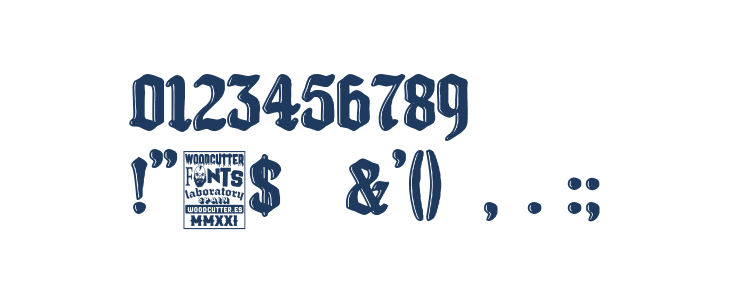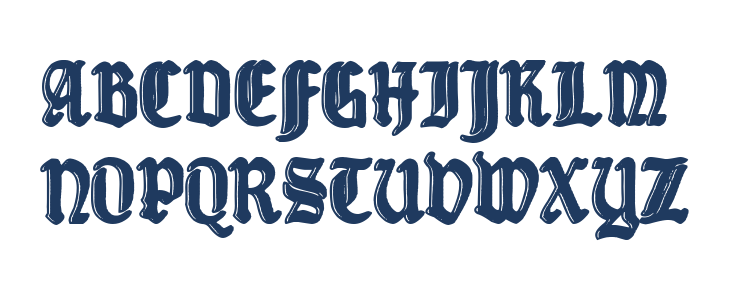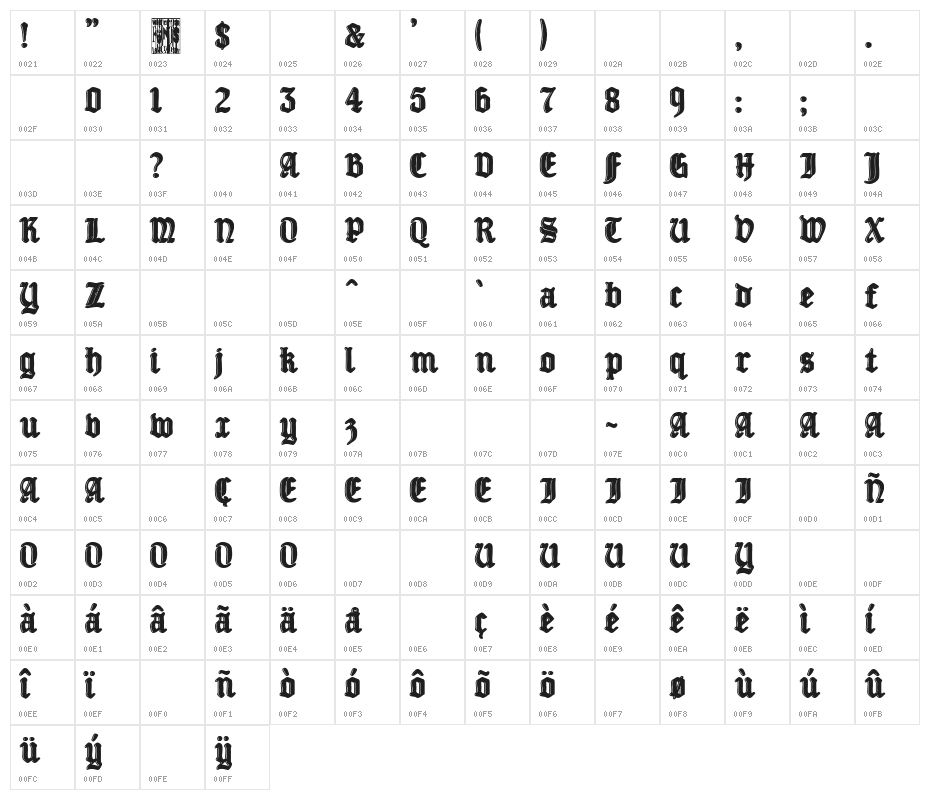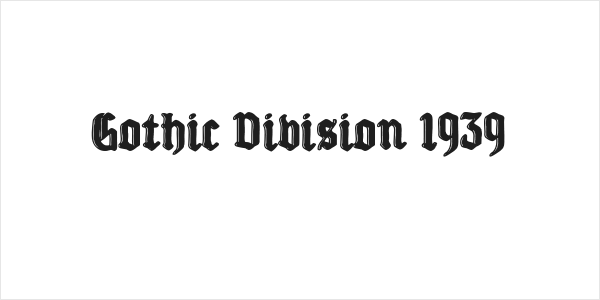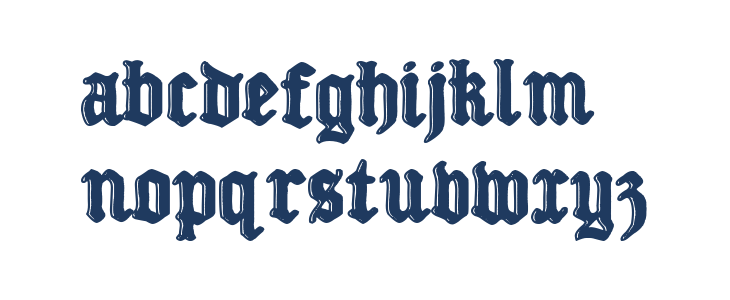
Gothic Division 1939 Font
Gothic Division 1939 Description
A dramatic, angular typeface with thick, heavy strokes and sharp serifs, featuring ornate, medieval-inspired letterforms reminiscent of traditional blackletter styles.
| Overall Style | Decorative, Vintage, Gothic |
| Use Case | Headlines, Logos, Decorative text |
| Proposed Projects | Posters, gothic-themed branding, book covers, event invitations, tattoo designs, historical or fantasy media. |